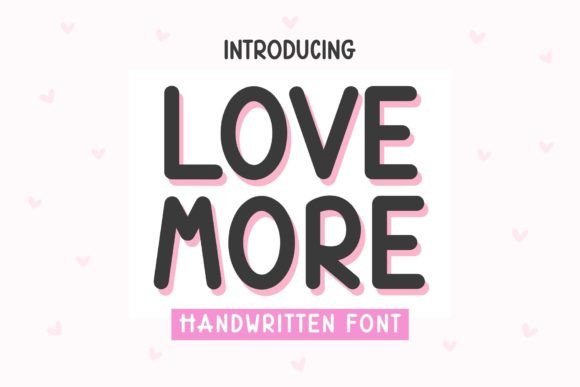
Introducing Love More Font, the best font for note-taking! Created by MyFontsShop, this incredibly sweet and friendly handwritten font is sure to captivate your heart and elevate your designs. With its natural and unique style, Love More Font is perfect for adding a touch of charm and personality to any project.
Love More Font's versatility knows no bounds, making it an ideal choice for a wide range of designs. Whether you're creating greeting cards, invitations, logos, or branding materials, this font will effortlessly enhance the visual appeal of your work. Let your creativity run wild and watch as Love More Font brings your ideas to life!
What sets Love More Font apart is its ability to evoke a sense of warmth and emotion. As you jot down your notes or craft a heartfelt message, this font will add a touch of love and sincerity to every word. Its flowing strokes and delicate curves create an enchanting visual experience, leaving a lasting impression on anyone who sees it.
Imagine the joy of receiving a handwritten note that feels personal and genuine. With Love More Font, you can evoke those same emotions in your digital creations. Whether you're designing social media graphics or crafting a beautiful blog post, this font will infuse your words with a heartfelt touch, making your content stand out from the crowd.
The beauty of Love More Font lies in its simplicity. It effortlessly blends elegance with a hint of playfulness, making it suitable for various design aesthetics. Whether you prefer a modern, minimalist look or a whimsical, artistic style, this font adapts seamlessly to your vision. Its versatility ensures that Love More Font will always be the perfect companion for your creative endeavors.
Don't settle for ordinary fonts that fail to leave a lasting impression. Choose Love More Font and let its captivating charm elevate your designs to new heights. Stand out from the competition and create a memorable user experience that will keep your audience coming back for more.
In conclusion, Love More Font is not just a font; it's an opportunity to add a touch of magic to your designs. Its natural and unique style, combined with its versatility, makes it the best font for note-taking. Let Love More Font be your creative companion and unlock a world of endless possibilities. Download now and let your imagination soar!